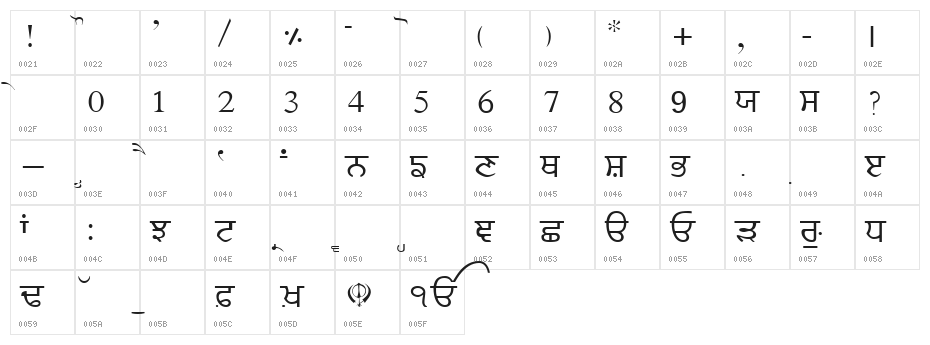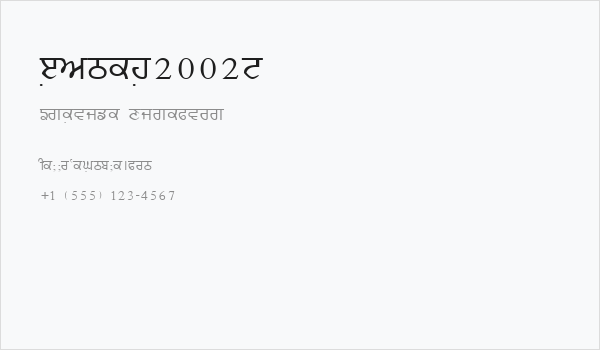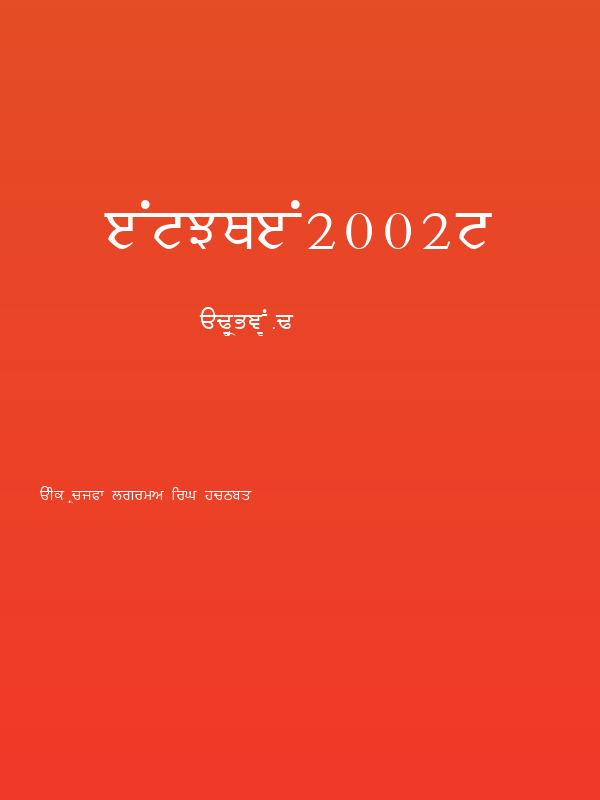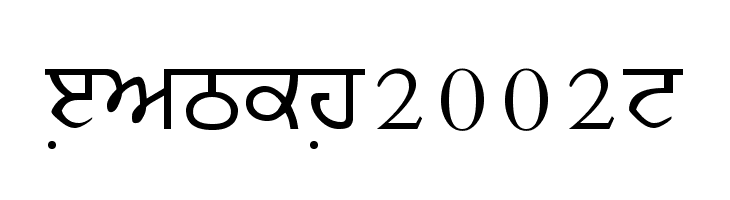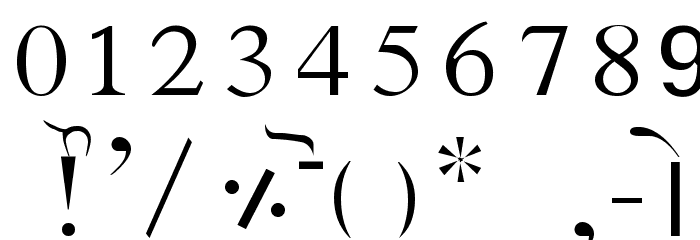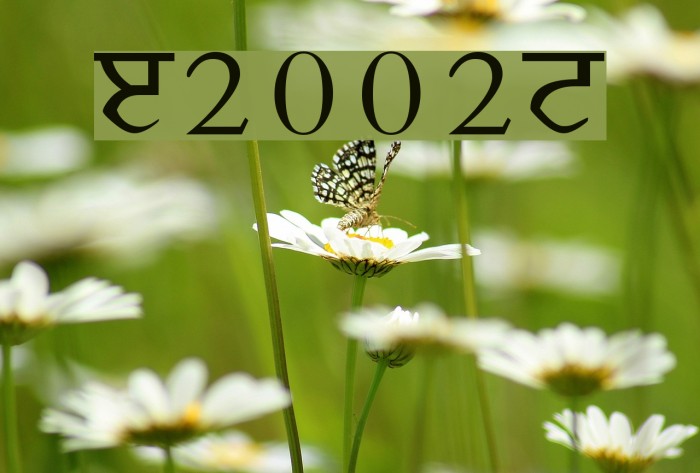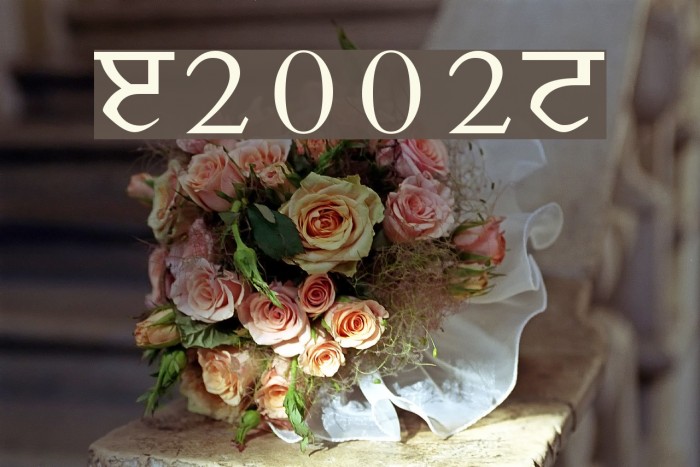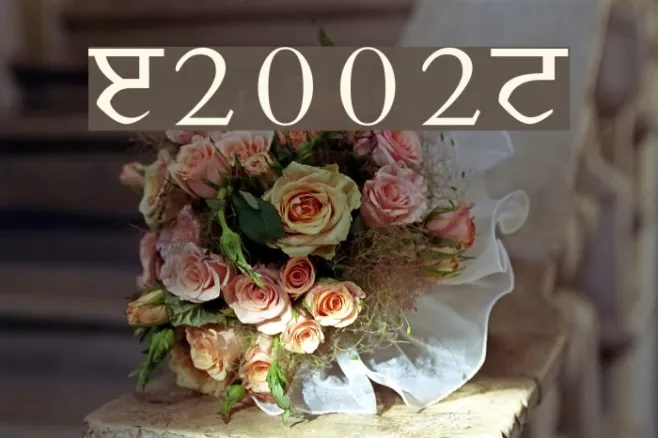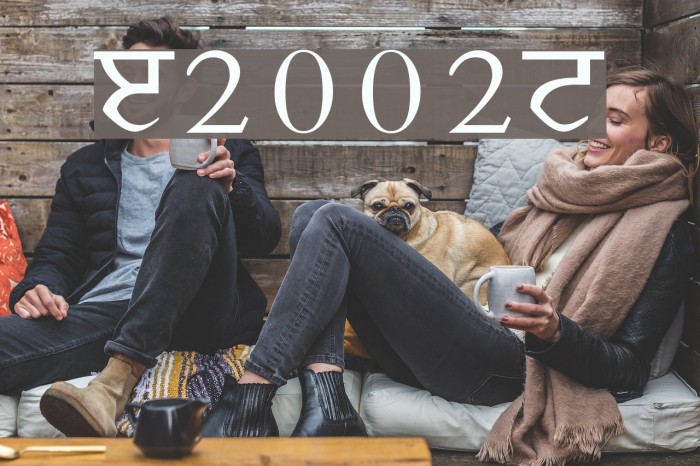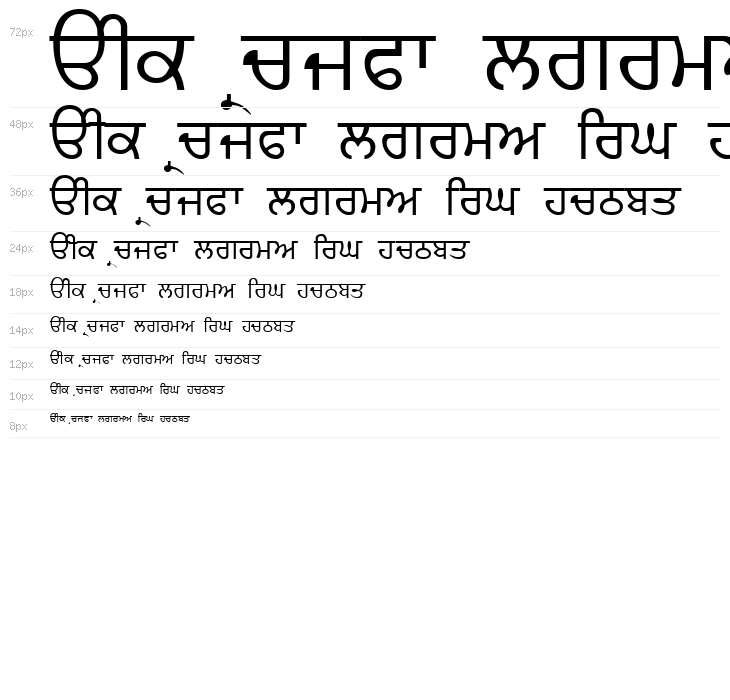
Janmeja2002N Font
Janmeja2002N Description
This font features a clean and modern design with a focus on clarity and readability. The characters are well-defined with a consistent stroke width, making it suitable for both digital and print media. The numerals are distinct and easy to read, while the special characters are designed with a contemporary flair. The overall style is balanced, providing a professional appearance that is versatile for various applications.